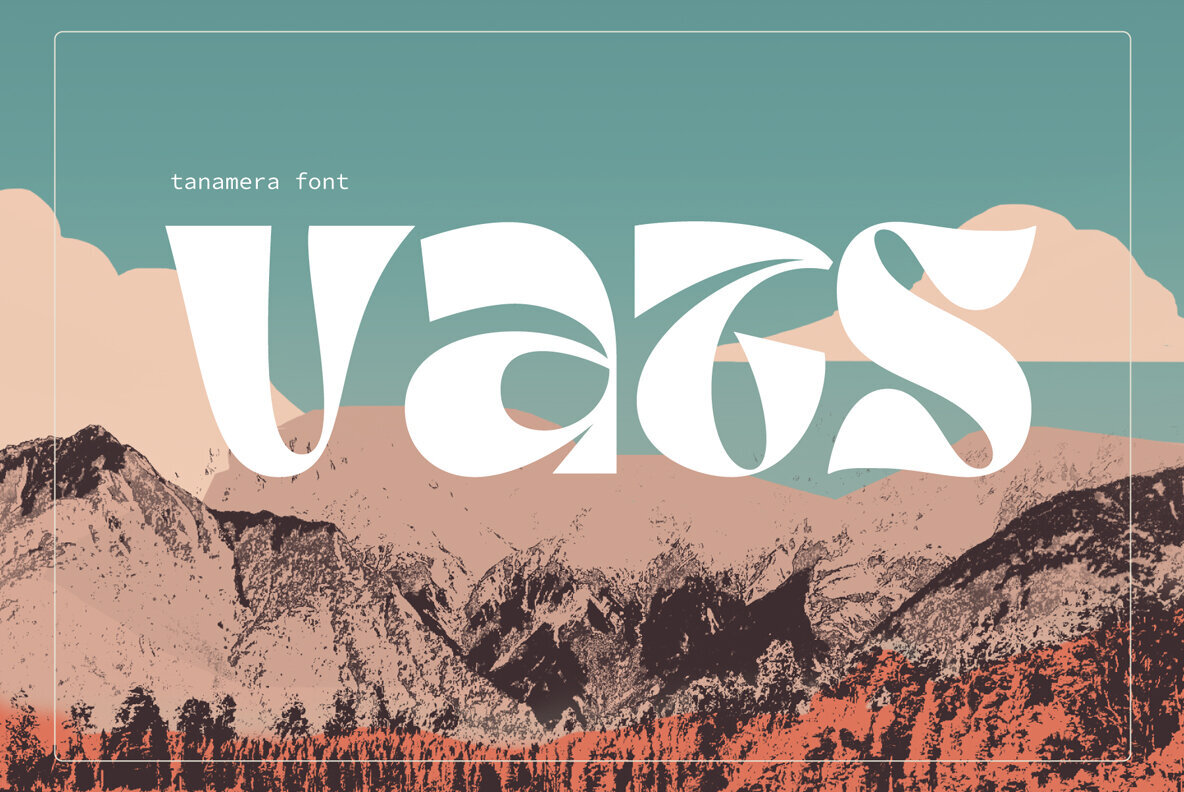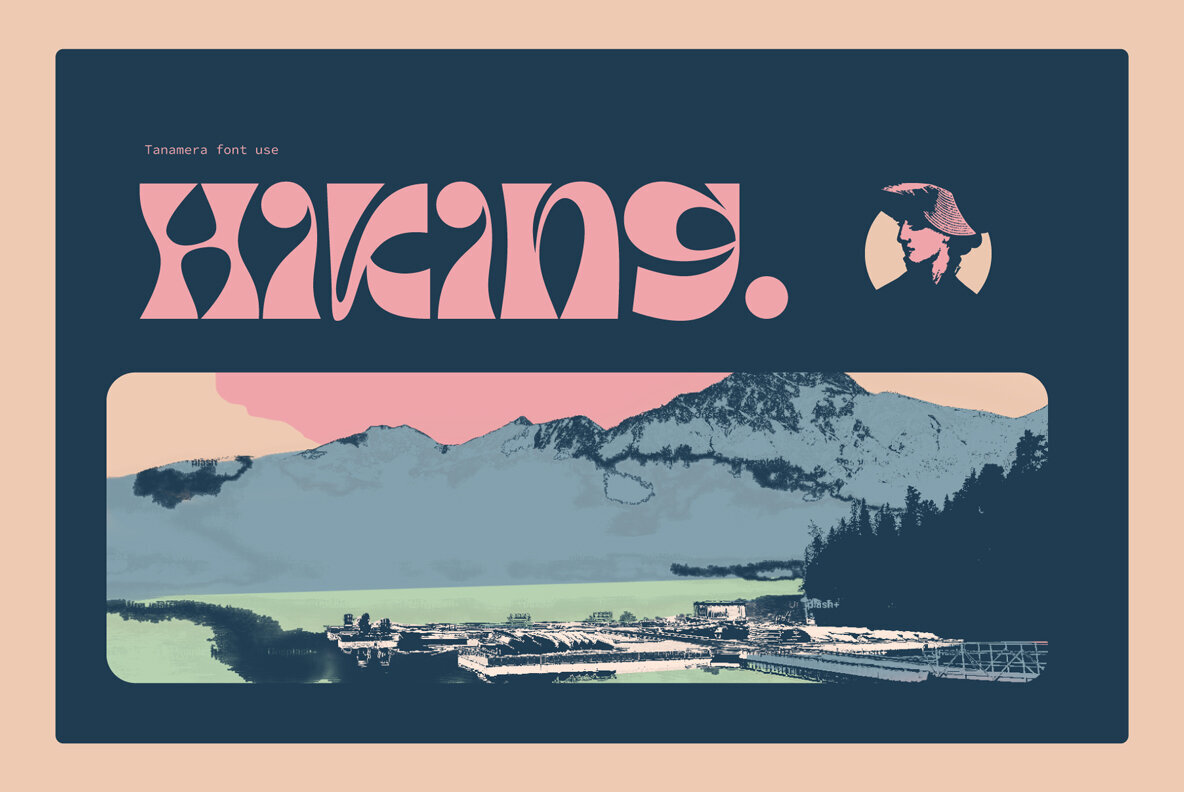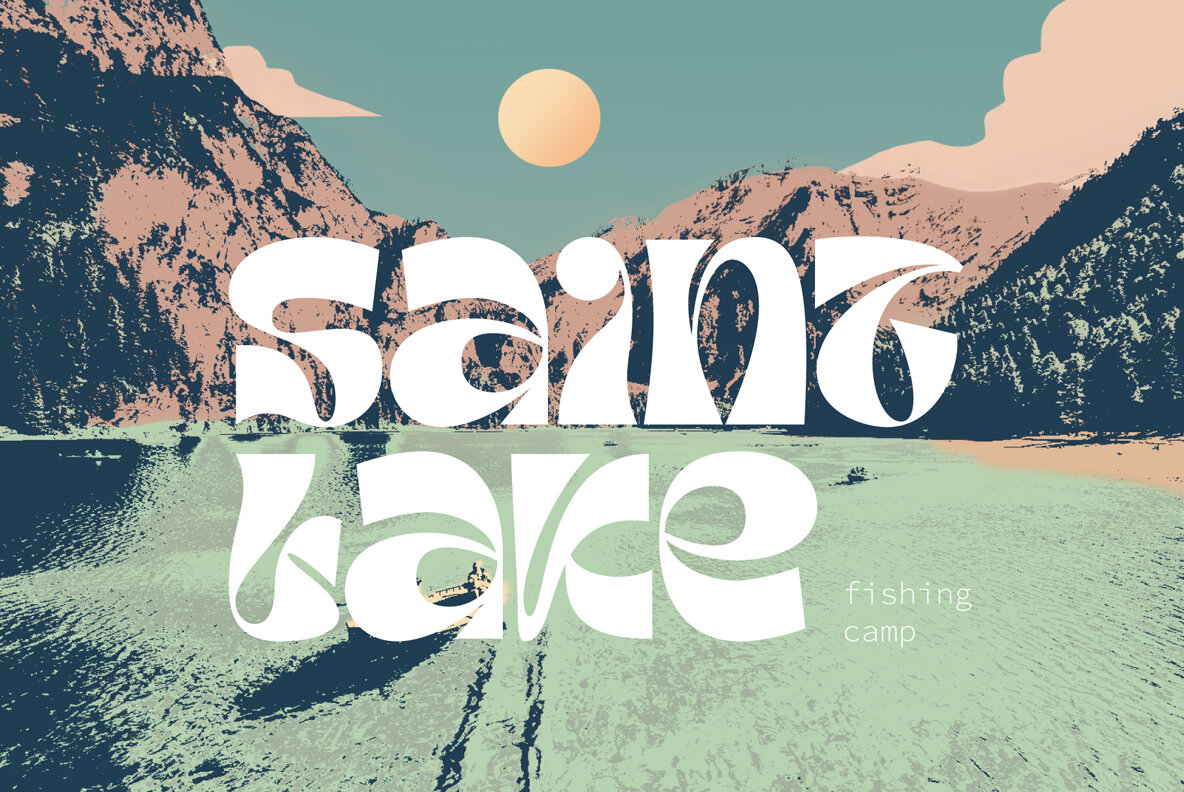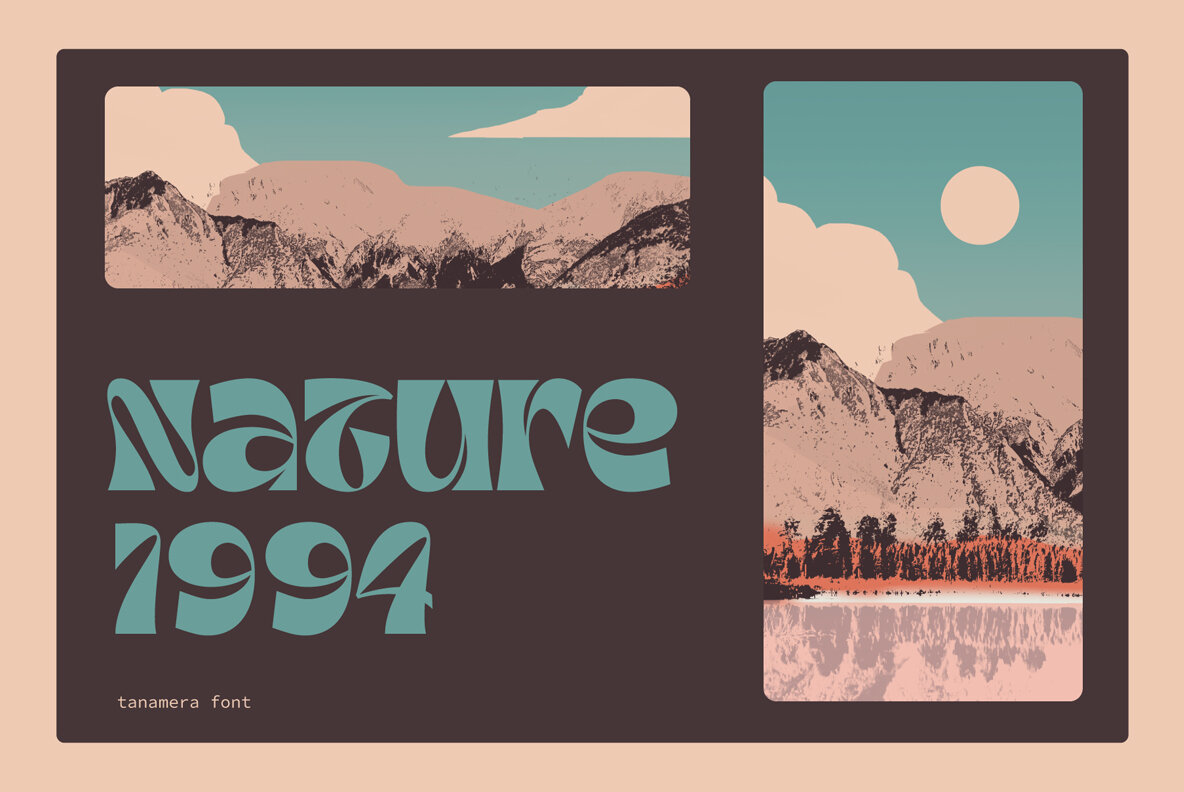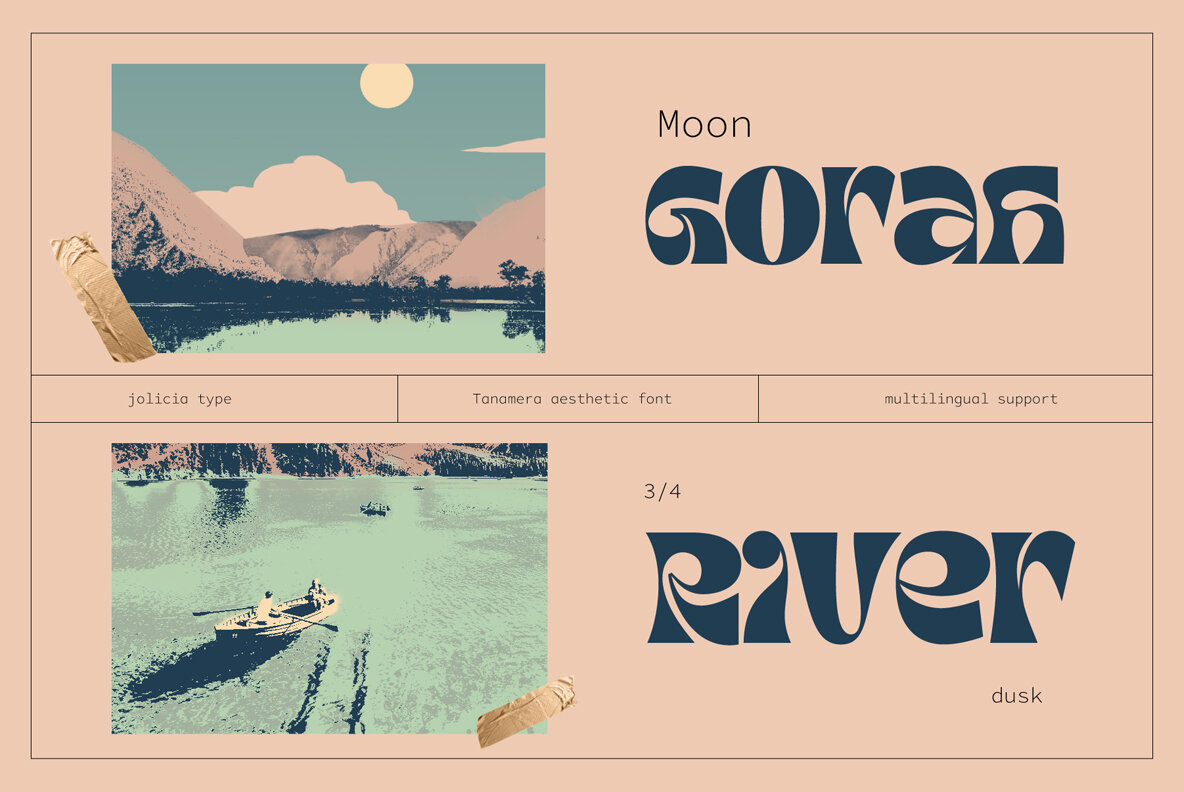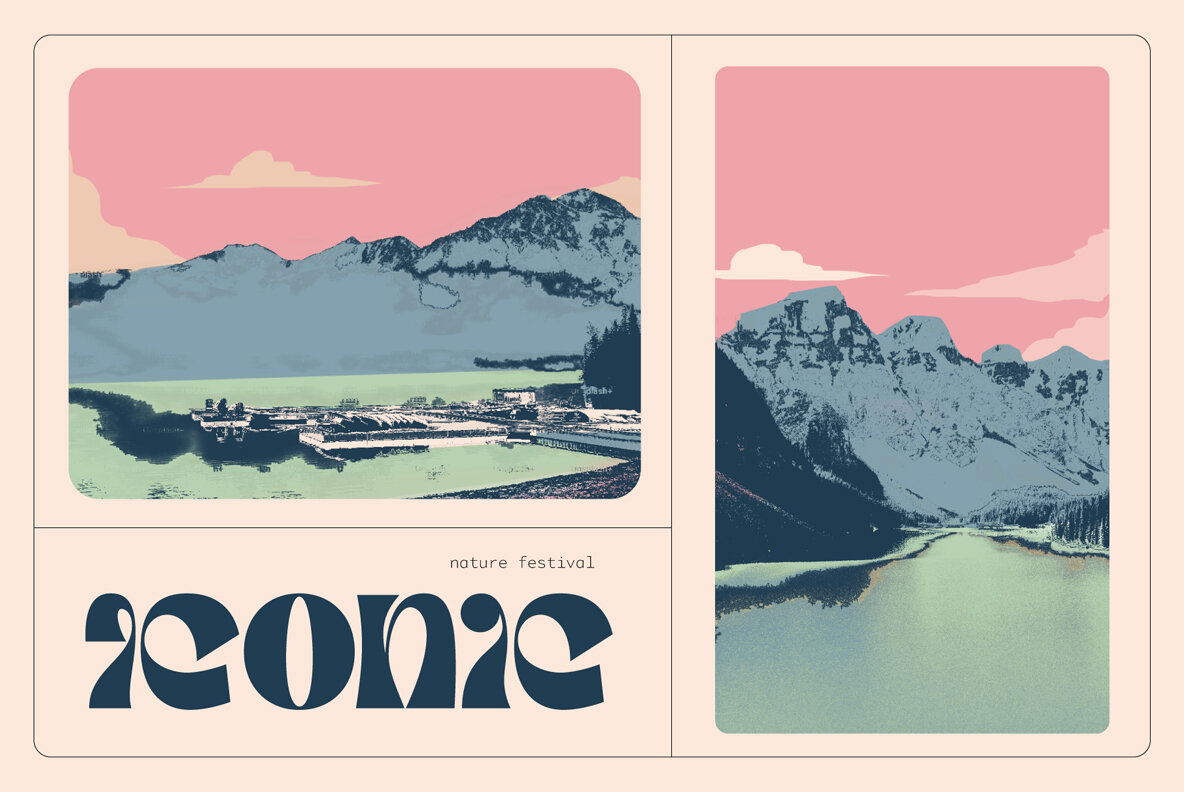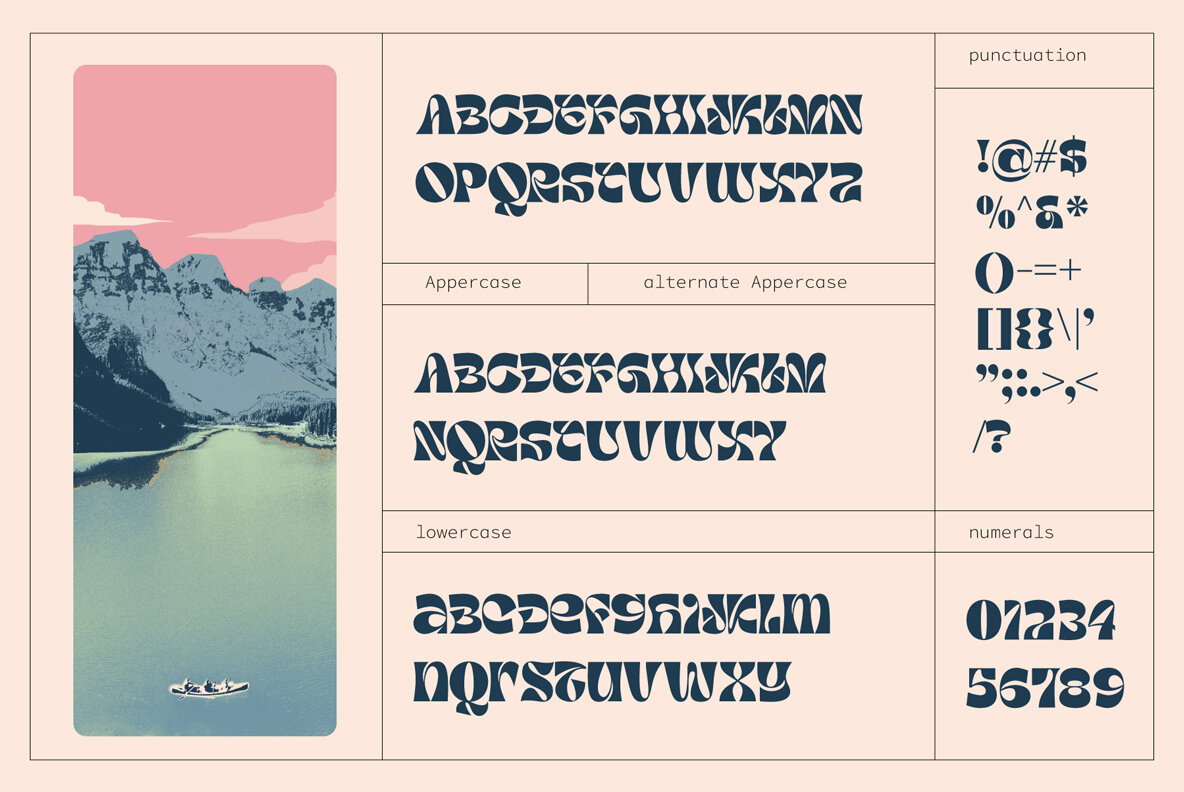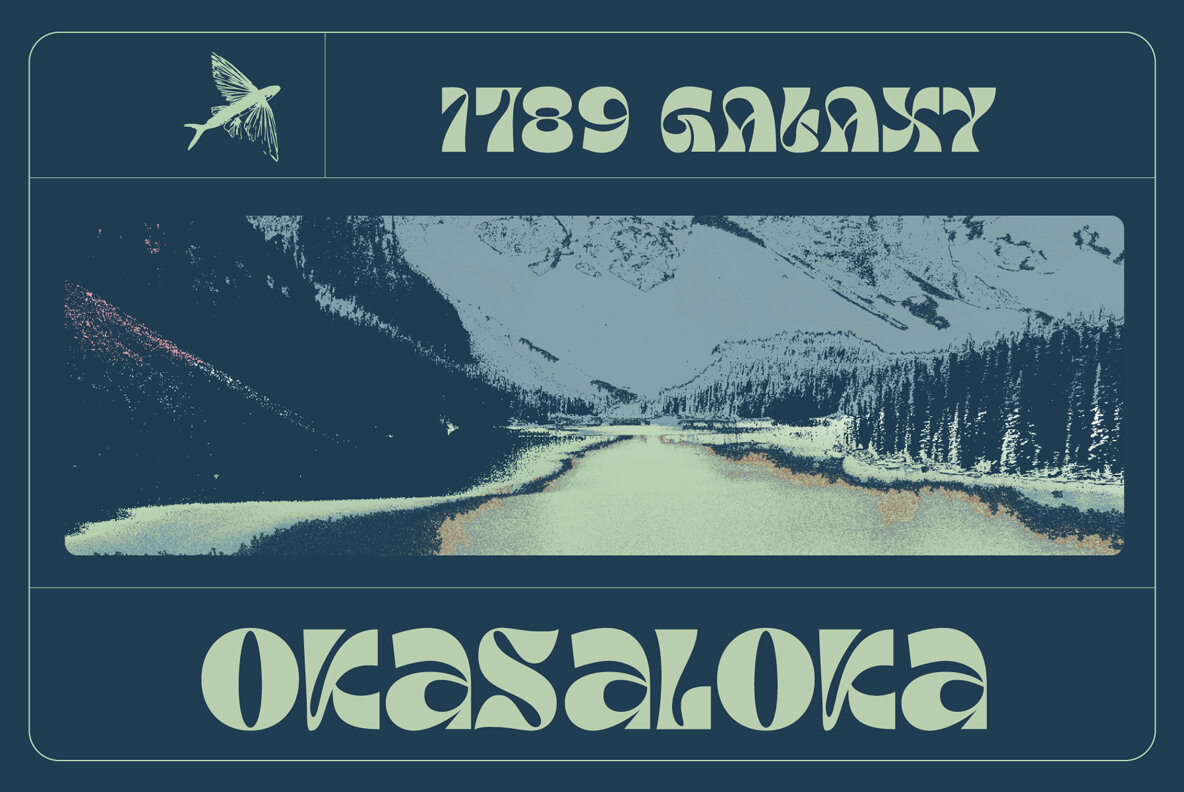
Unleash the vibrant energy of the '60s and '70s with Tanamera, the ultimate psychedelic type display font that channels the essence of retro vintage style. Whether you're designing a groovy poster, an album cover, or revamping your branding, Tanamera is your ticket to a kaleidoscopic journey through time. Key Features: Why Choose Tanamera? Tanamera is not just a font; it's a portal to the past, a gateway to a world of vibrant colors, free-spirited expression, and boundless creativity. It's your chance to infuse your designs with the unmistakable energy and style of the psychedelic era, creating a visual experience that captivates and enchants your audience. Let Tanamera be your guide to reviving the past while embracing the future. Elevate your design projects with this captivating font, and watch as your creations come to life with the magic of retro vintage style. Get Tanamera today and embark on a journey through time that will leave a lasting impression on anyone who sees your work.Introducing Tanamera: Your Portal to Psychedelic Nostalgia